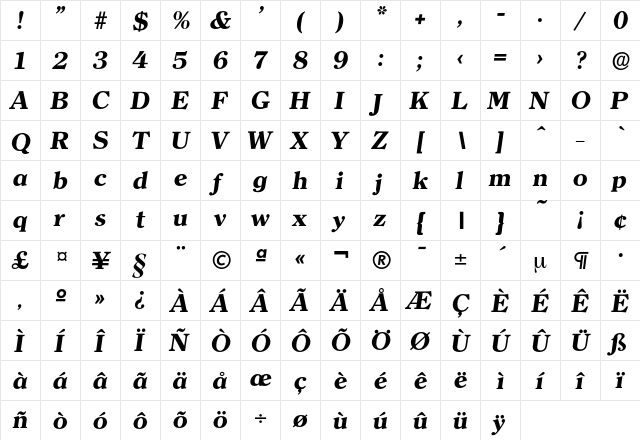
Clerface-BoldIta Regular Font Preview
Clerface-BoldIta Regular
Clerface-BoldIta Regular Font Details
Design Context for Clerface-BoldIta Typeface
Clerface-BoldIta offers clean, dependable letterforms without strong stylistic allegiance, making it a practical choice for designers who need flexibility. The heavy weight commands attention and anchors typographic hierarchies.